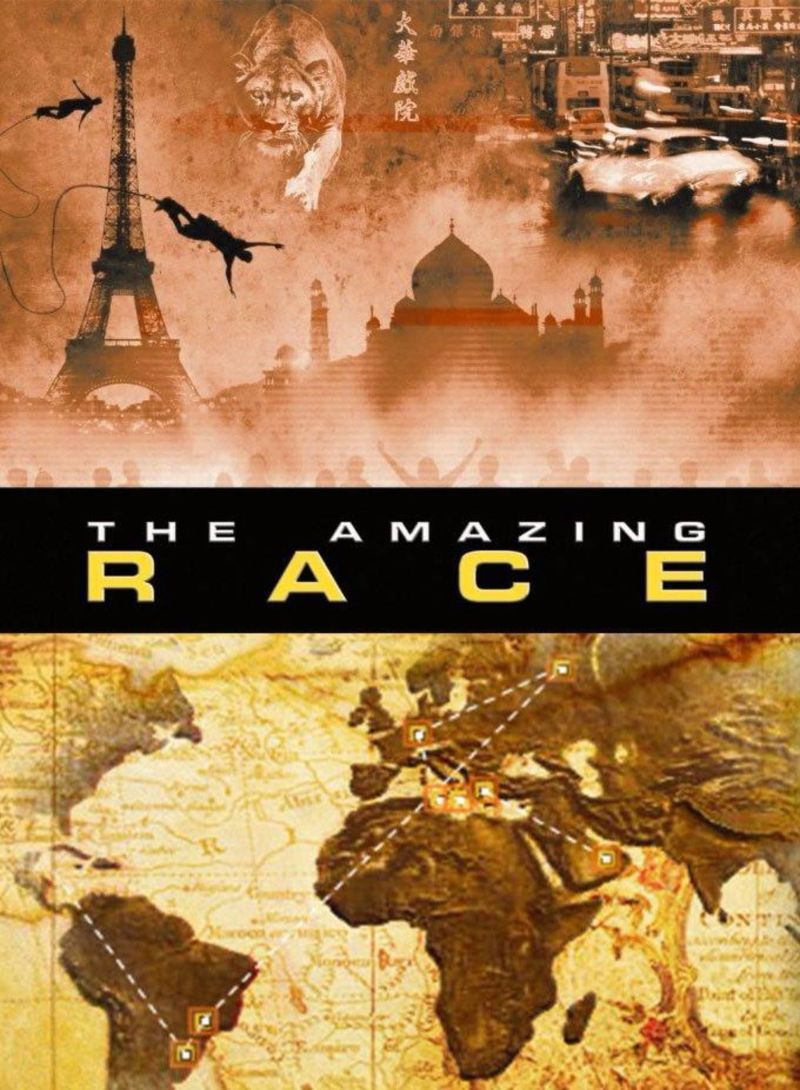
The Amazing Race (TV Show) Font
Fonts in UseThe Amazing Race is a reality television show where teams of two race around the world completing challenges to win a grand prize. The show premiered on CBS in the United States in 2001 and has since aired numerous seasons.
The TV show's title font, Eurostile Extended Black, is a geometric sans-serif typeface created by Aldo Novarese in 1962. More details about the font can be found here.